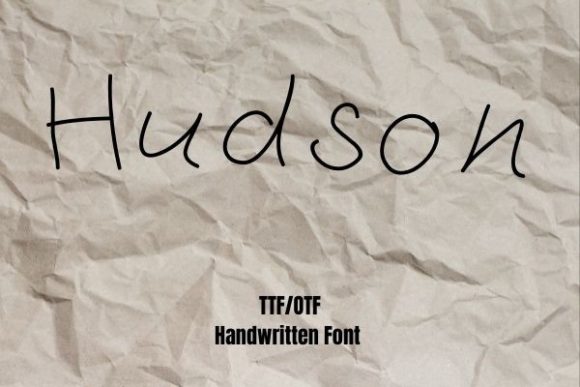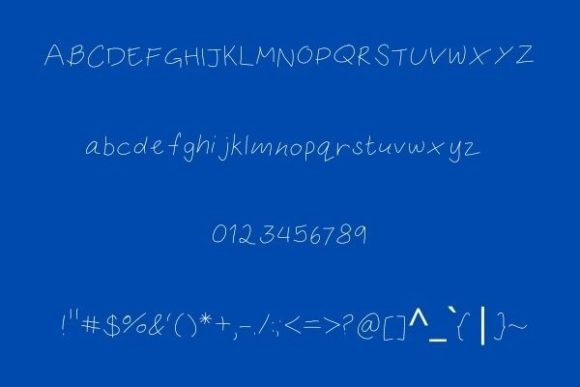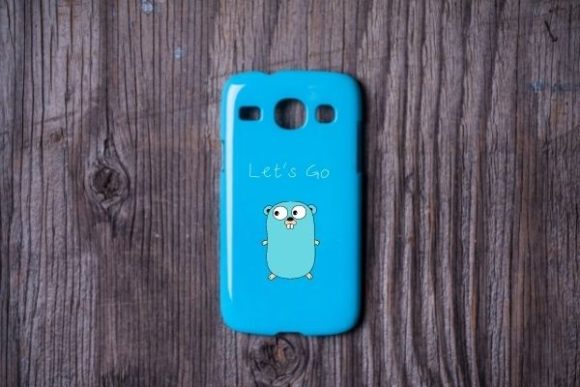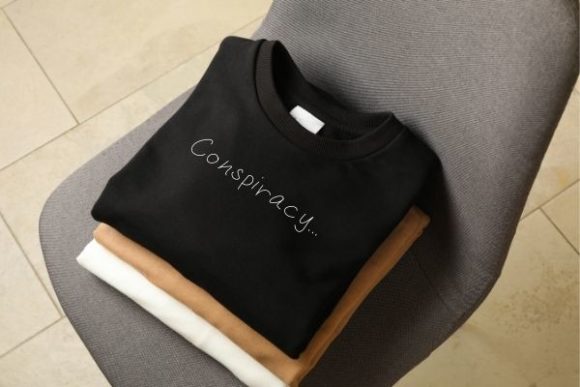
Hudson Font
Hudson is a simple, slim, and casual handwritten font designed to be a versatile choice for various branding projects. Its straightforward and approachable style makes it suitable for a range of applications, including logos, t-shirt printing, creative products, and more.
The simplicity of Hudson adds a clean and uncluttered look to your text, making it easy to read and comprehend. This makes it particularly effective for conveying messages in a straightforward manner, ensuring clarity in your branding materials.
In logos, Hudson brings a casual and friendly vibe, making it suitable for a diverse range of brands. The font’s slim and simple design allows for easy integration into different logo styles, enhancing the overall visual identity of your brand.
For t-shirt printing, Hudson contributes to a laid-back and casual aesthetic. The font’s slim letterforms add a touch of style without being overly elaborate, making it a great choice for creating trendy and comfortable apparel designs.
In creative products, Hudson’s versatility shines as it adapts to various design contexts. Whether applied to packaging, labels, or other creative materials, the font’s casual and handwritten charm adds a personal touch to your products.
The slim and casual nature of Hudson makes it a valuable asset for designers seeking a font that effortlessly blends into different projects. Its adaptability and simplicity make it a go-to choice for those looking to achieve a relaxed and approachable design.
In summary, Hudson is more than just a font; it’s a simple, slim, and casual handwritten design tool that enhances various branding projects. Whether used in logos, t-shirt printing, creative products, or other applications, Hudson brings a touch of casual charm and versatility to your designs.